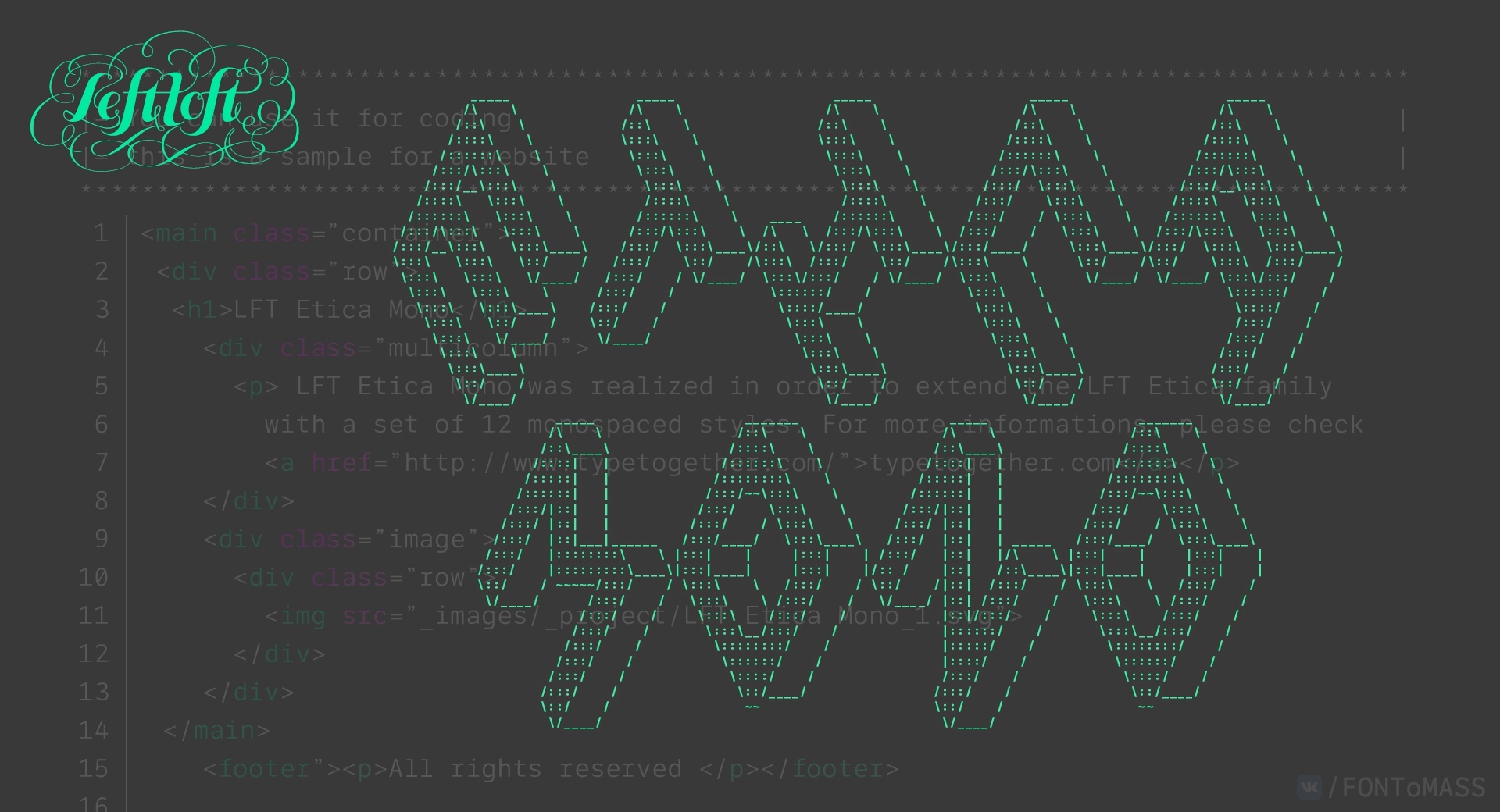
LFT Etica Mono Font
LFT Etica Mono Font is perfect for coding environments, technical documentation, programming interfaces, software development projects, data visualization, terminal applications, code editors, digital design systems, tech company branding, and modern web development platforms.
What makes LFT Etica Mono Font so exciting is its perfect balance of technical precision and humanist readability that creates optimal coding experiences while maintaining professional aesthetics. This exceptional monospace typeface combines functional excellence with contemporary design principles, delivering typography that enhances productivity and visual clarity.
The LFT Etica Mono Font family includes light, regular, medium, and bold weights, complete with italic variations and extensive character coverage, providing developers and designers with a comprehensive monospace system for all technical and creative applications.
The precisely crafted letterforms of LFT Etica Mono Font feature optimized character distinction and consistent spacing that reduces eye strain during extended coding sessions while maintaining perfect alignment for tabular data and code structures. Each glyph has been designed with careful attention to character differentiation, ensuring that similar-looking characters remain clearly distinguishable even at small sizes. The font's balanced proportions and generous spacing contribute to superior readability and professional appearance.
Software developers and technical teams worldwide trust LFT Etica Mono Font for projects requiring exceptional code readability and professional presentation. The comprehensive character set includes programming symbols, mathematical operators, currency signs, and extensive punctuation that provide complete support for complex coding environments and international development projects.
The technical excellence of LFT Etica Mono Font ensures consistent performance across all platforms and development environments. Whether working in integrated development environments, creating technical documentation, or designing data-rich interfaces, this remarkable typeface delivers the reliability and clarity that technical professionals demand for optimal productivity and code quality.